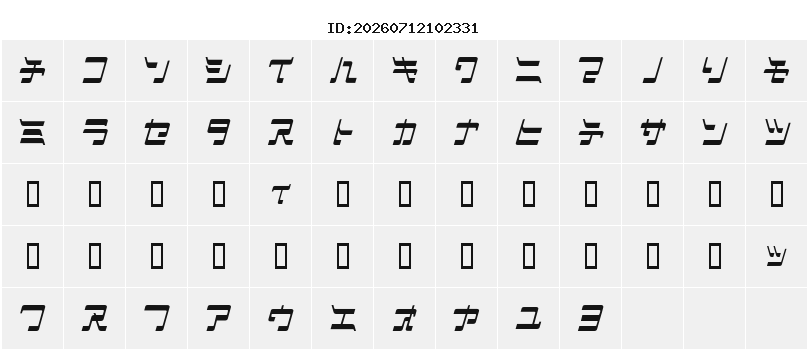
ManiacKt.ttf is a modern, elegant sans-serif font designed for ultimate readability and visual harmony. Perfect for branding, headlines, web design, and print materials.